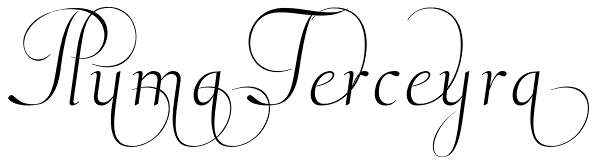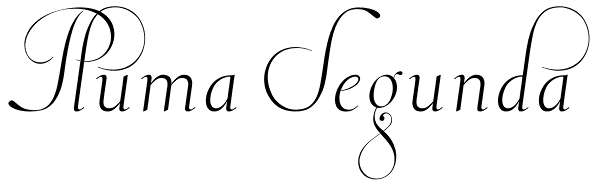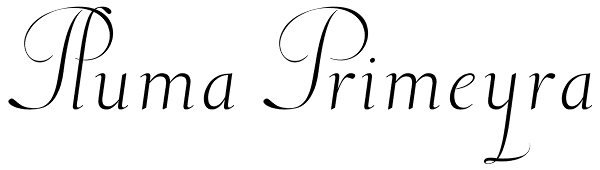
Pluma
This typeface was inspired in the amazing typographic work of Manoel de Andrade de Figueiredo that was published in 1722, named "Nova Escola para Aprender a Ler, Escrever e Contar, offerecida ‡ Augusta Magestade do Senhor Dom Jao V, Rey de...
Pluma Terceyra
Pluma Terceyra Font
Pluma Segunda
Pluma Segunda Font
Pluma Primeyra
Pluma Primeyra Font